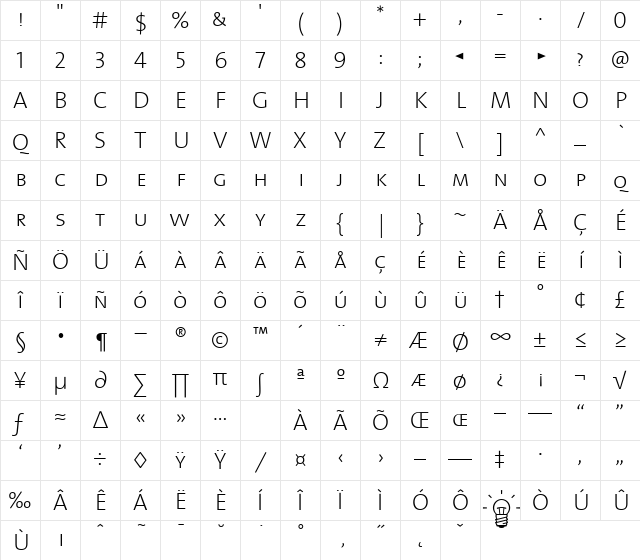
TheMixCaps-ExtraLight Extra Light Free Font
TheMixCaps-ExtraLight Extra Light
Style: Extra Light
Design Context for TheMixCaps-ExtraLight
TheMixCaps-ExtraLight is a composed and adaptable typeface that performs quietly and consistently across a wide range of design contexts. Its slender proportions lend an understated elegance to any composition.